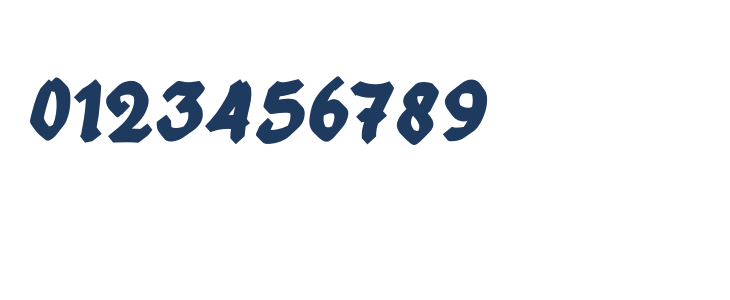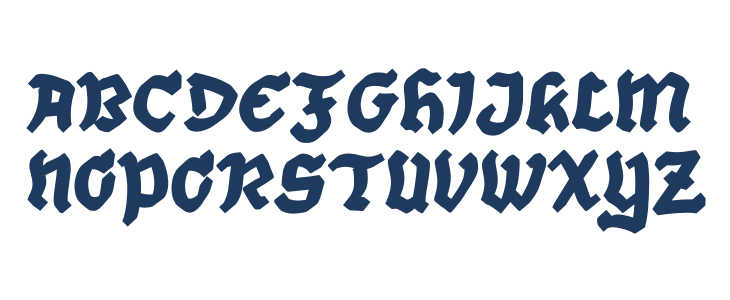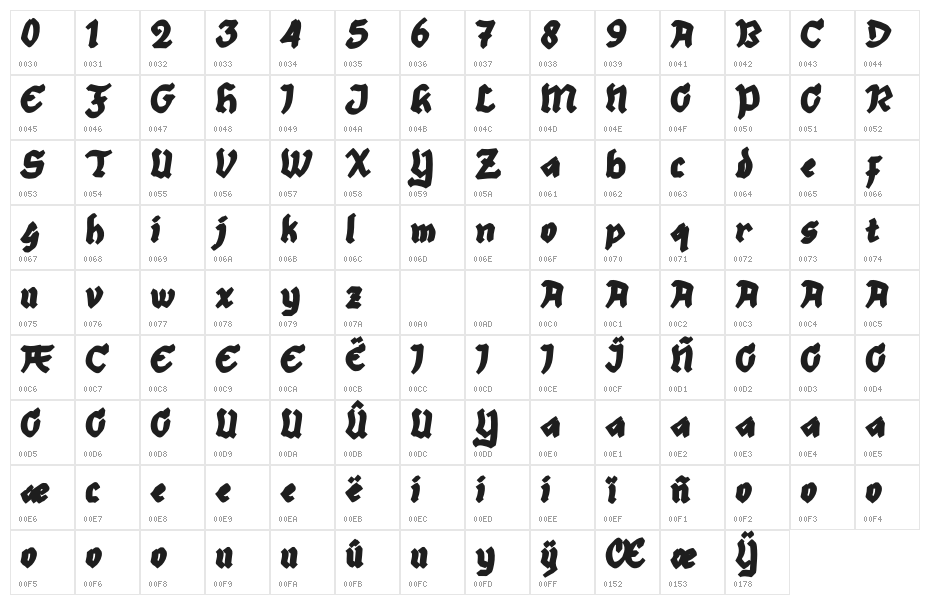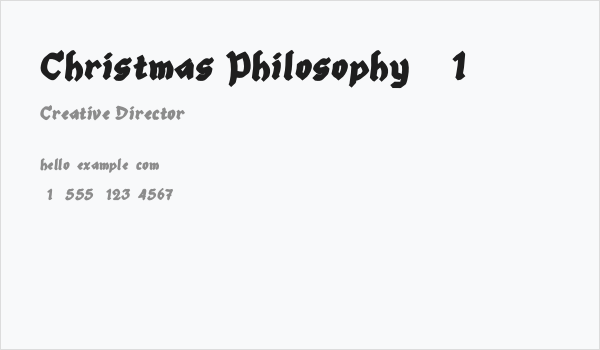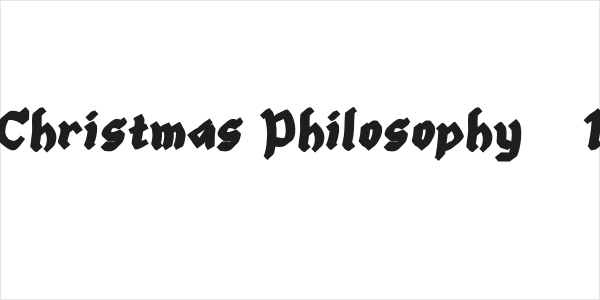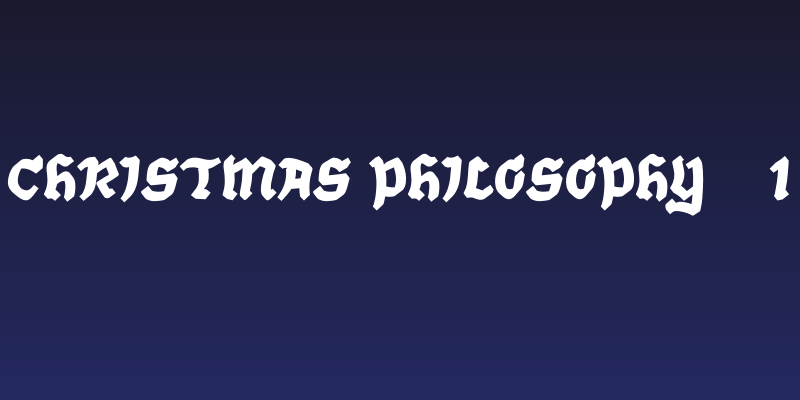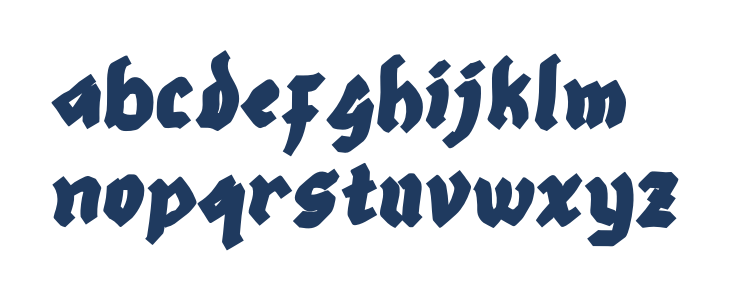
Christmas Philosophy - 1 Font
Christmas Philosophy - 1 Description
A bold, angular blackletter typeface with sharp edges and dramatic strokes, evoking a traditional Gothic or medieval manuscript style. The characters are highly stylized with strong vertical emphasis and pronounced serifs.
| Overall Style | Decorative, Vintage, Gothic |
| Use Case | Headlines, Logos, Posters, Decorative text |
| Proposed Projects | Holiday cards, event posters, book covers, branding for themed events, decorative headings. |